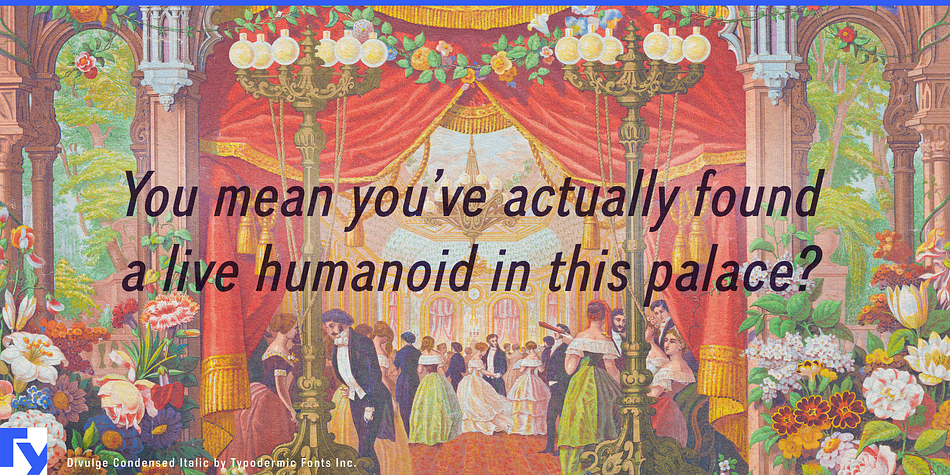
Divulge
Divulge is a sans serif font family. This typeface has twelve styles and was published by Typodermic Fonts Inc.
Welcome to the world of Divulge—a modern grotesque that echoes the refined beauty of nineteenth and early twentieth-century sans-serif metal type. With its austere and nuanced voice, Divulge exudes an old-fashioned charm that feels both familiar and fresh.
In a world of cookie-cutter fonts, Divulge is a standout. Its idiosyncrasies are generously peppered throughout, giving your message a unique and memorable character. But fear not—these quirks are not distracting. Rather, they add just the right touch of personality without overwhelming your reader.
Divulge comes in three weights—light, regular, and bold—and two widths, allowing you to choose the perfect style for your message. And if you really want to make a statement, the elegant italics add a touch of class and sophistication.
So whether you’re crafting a classic, old-fashioned design or looking to add warmth and personality to a modern project, Divulge has you covered. Try it out today and see how it elevates your message to new heights.